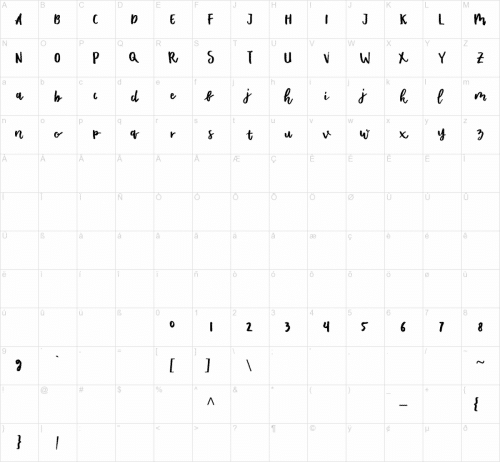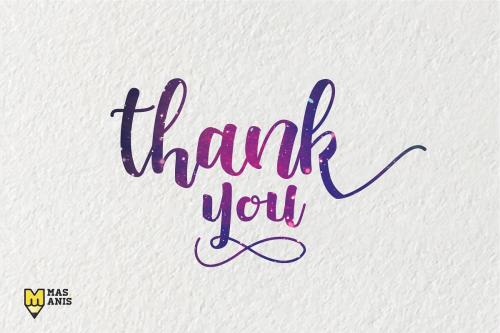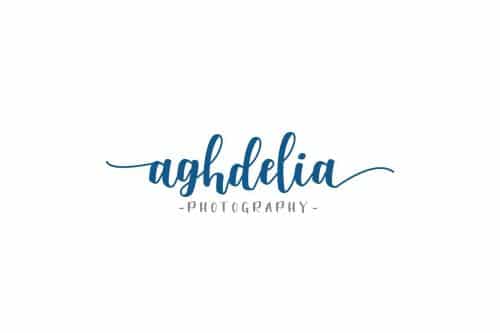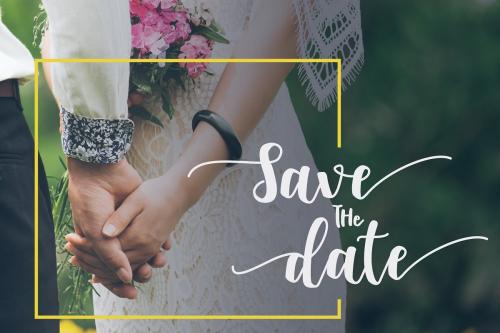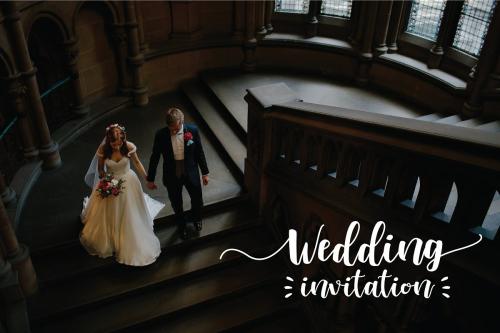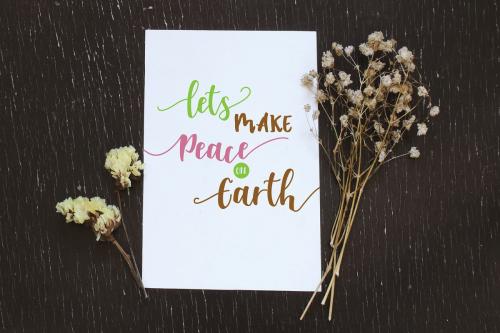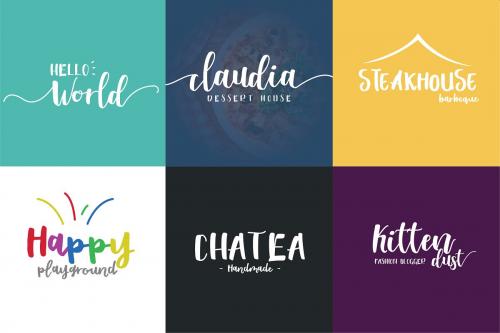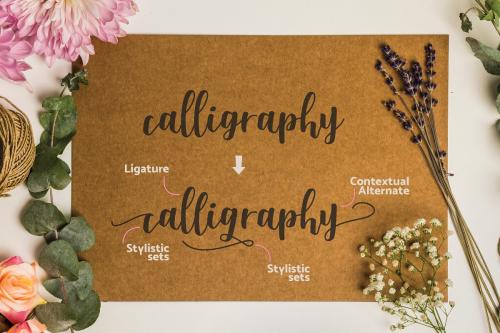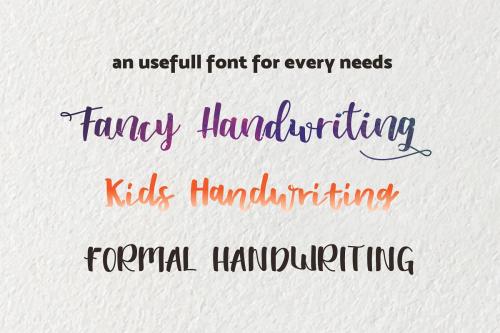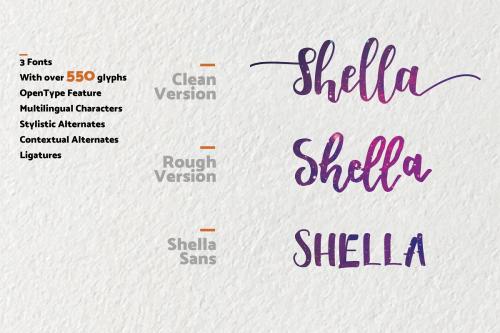
Shella Rough Brush Font
Shella Font Trio is a hand brushed, fun, warm, and cozy typeface duo with 3 different fonts style. Shella Clean font combines with the Shella sans or Shella rough font to make each word unique.
Suitable for any design needs, modern invitation design, branding, stationery design, blog design, modern advertising design, invitation, Art Quote, Home decor, Book/Cover Title, Invitation, special events, birthday, custom mug, pillow, t-shirts, any brush lettering needs and more.